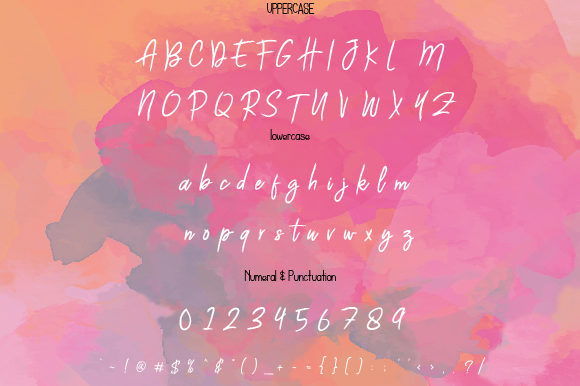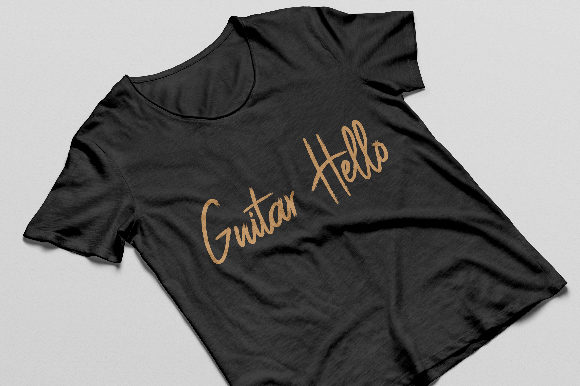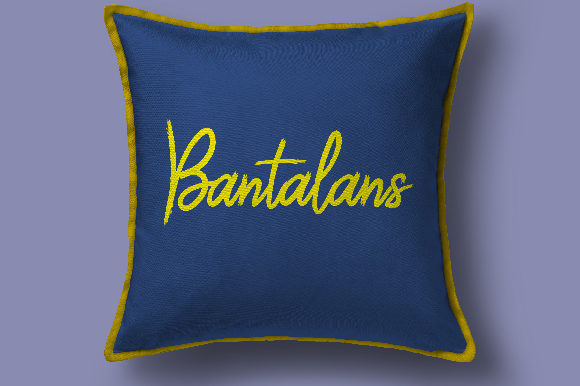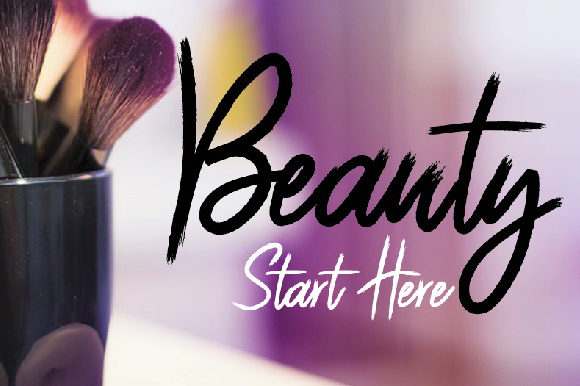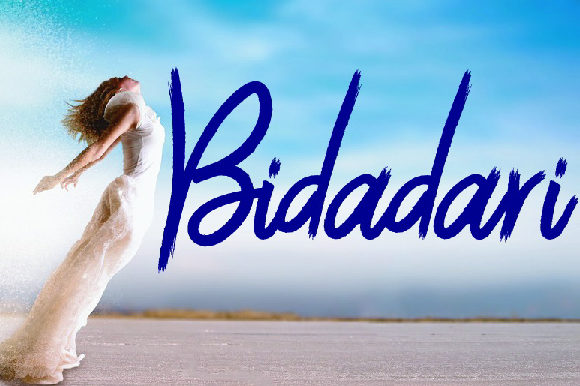
HomeScript FontsCendana Font Script Fonts Cendana Font FacebookXPinterestWhatsApp Cendana Font Poster 2 Cendana Font Poster 3 Cendana Font Poster 4 Cendana Font Poster 5 Cendana Font Poster 6 About Cendana Font The Cendana is a sketchy, artistic font, designed to give your work a fresh and creative feel DOWNLOAD ON CREATIVE FABRICAThis font is sold and delivered by Creative Fabrica. Font Canyon may earn a commission if you buy through this link. People also explored Creative Sense Font Shoot to Kill Font Mynaruse Thang Silverglow Font Quickly Font Authoritative Font Sweet Rabbit Font Death Squad 270 0 TagsCendana Font Previous articleHold on FontNext articleFeel Your Hand Font LEAVE A REPLY Cancel reply Comment: Please enter your comment! Name:* Please enter your name here Email:* You have entered an incorrect email address! Please enter your email address here Website: Save my name, email, and website in this browser for the next time I comment. Personal Use Free Jelly Fish Personal Use Free Read more about this font Starter Personal Use Free Read more about this font Rellista Script Personal Use Free Read more about this font Klotee Personal Use Free Read more about this font BLOG The 10 Best Handwriting Fonts to Add Personality to Your Designs 10 of the Best Handwriting Fonts for Adding Personality to Your Designs There will undoubtedly be no other better choice than handwriting fonts to give... Best Fonts for YouTube Videos: Make Your Thumbnails Stand Out To increase your work productivity, choose the most readable fonts. Where to Buy American Fonts Online in 2024